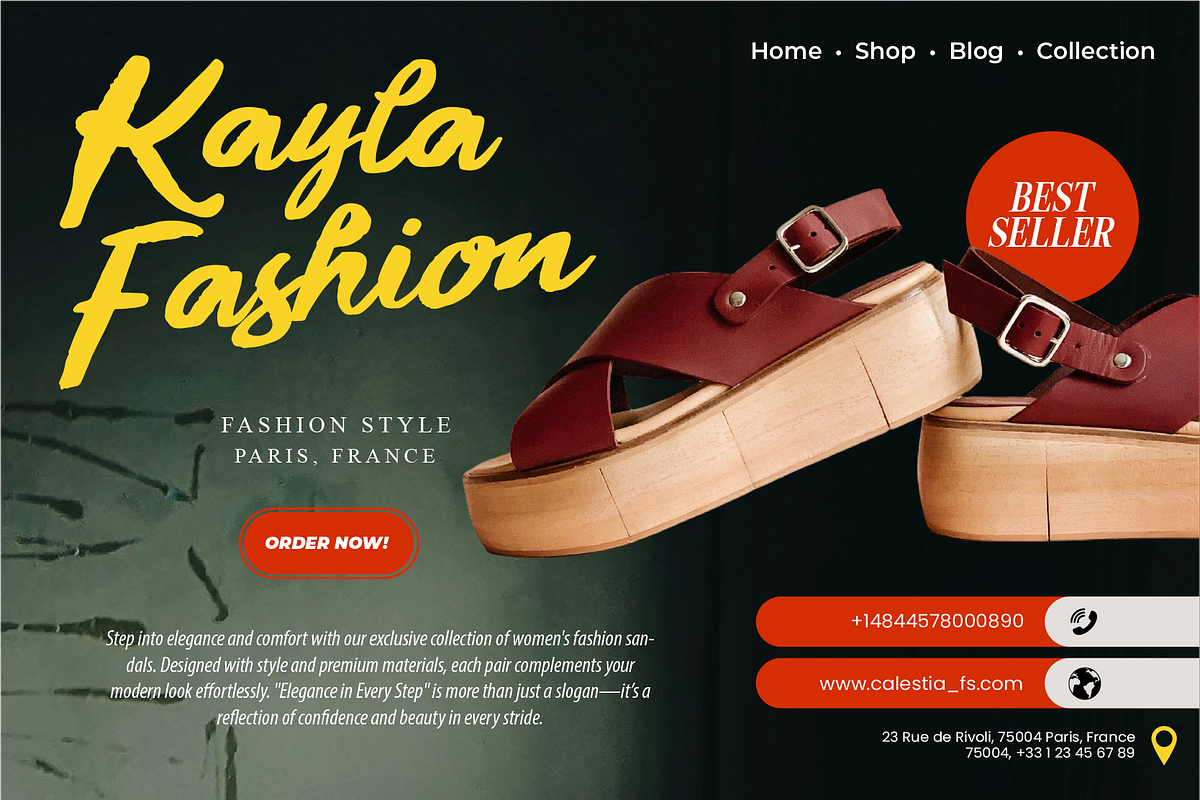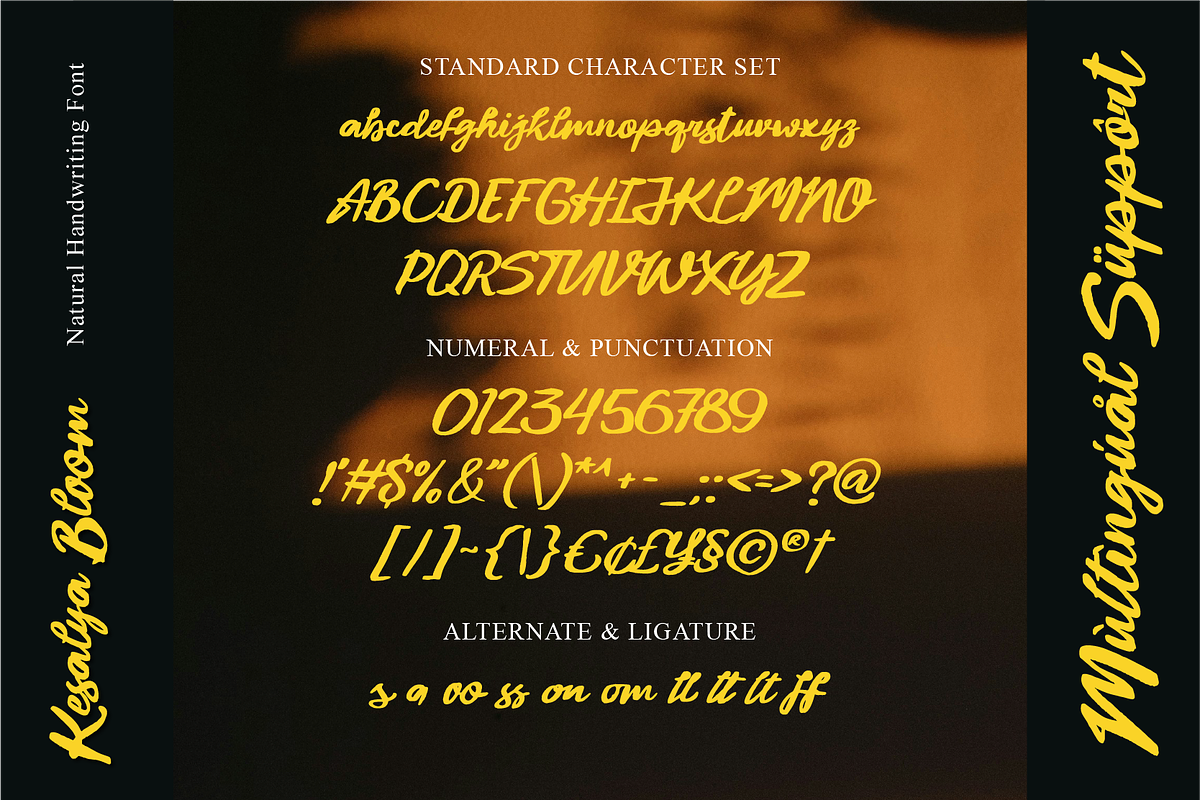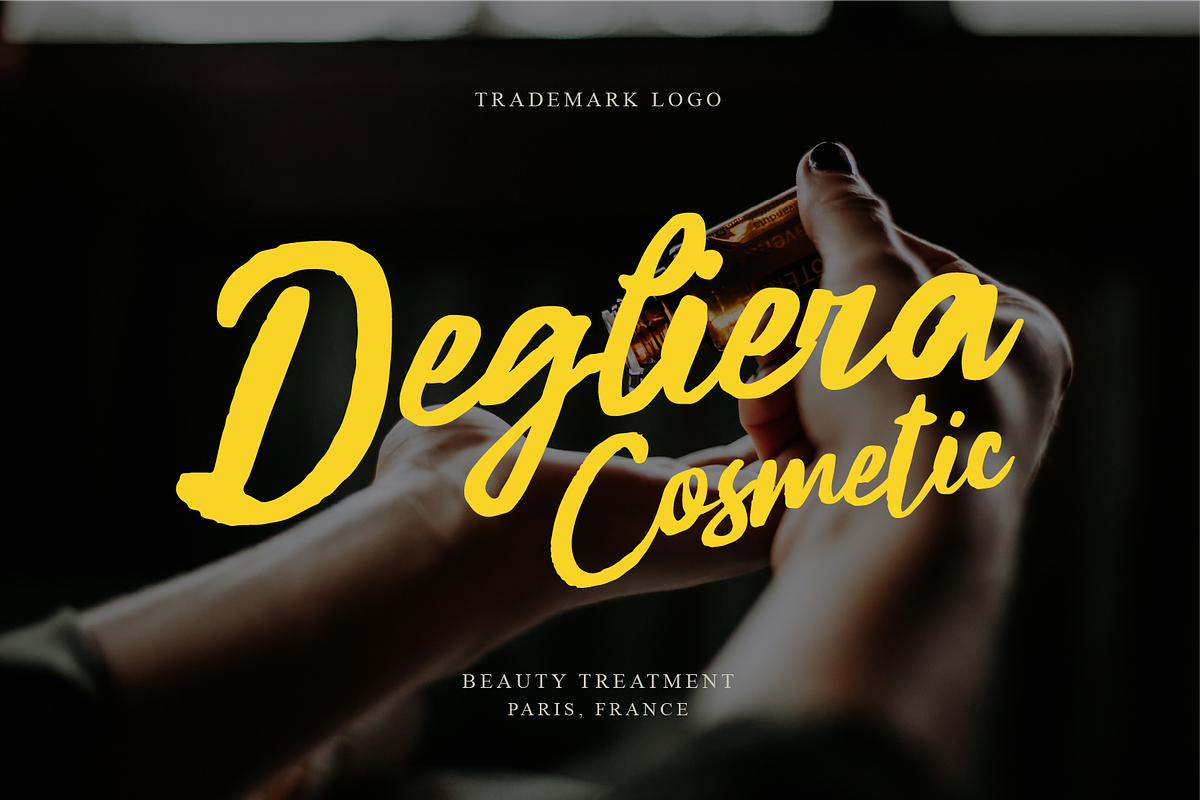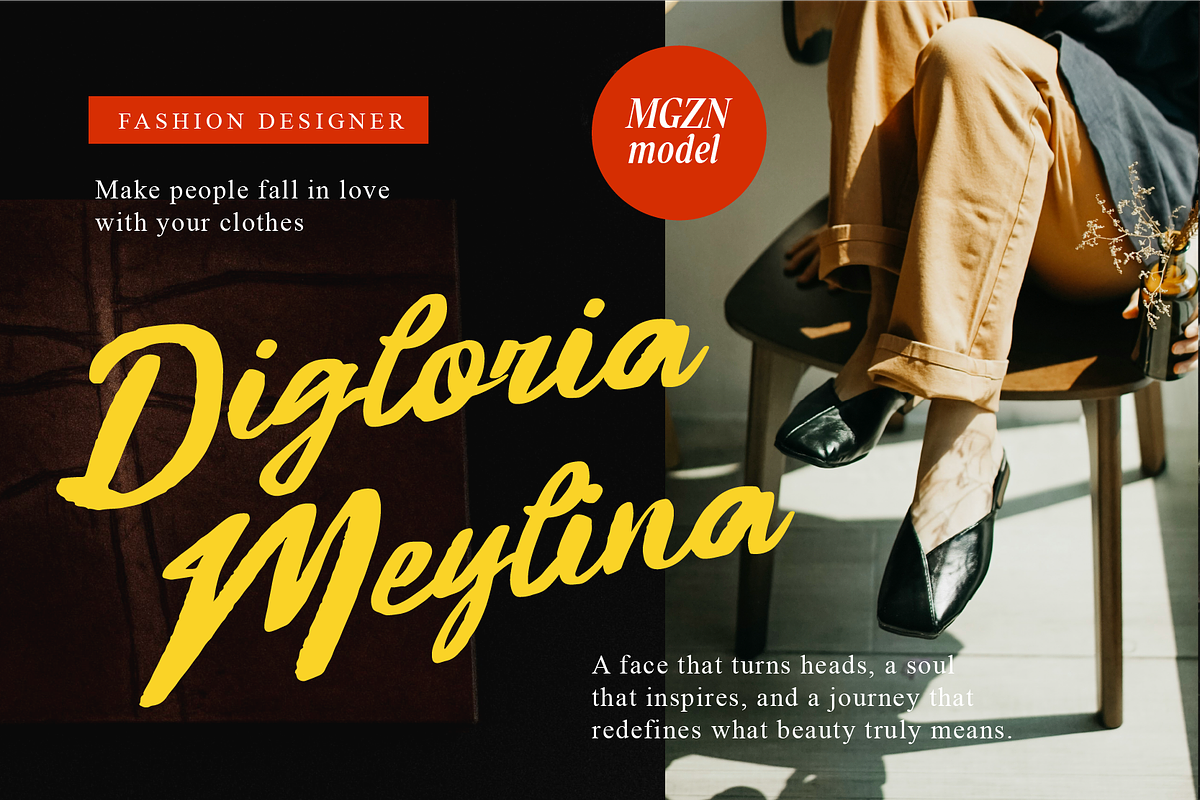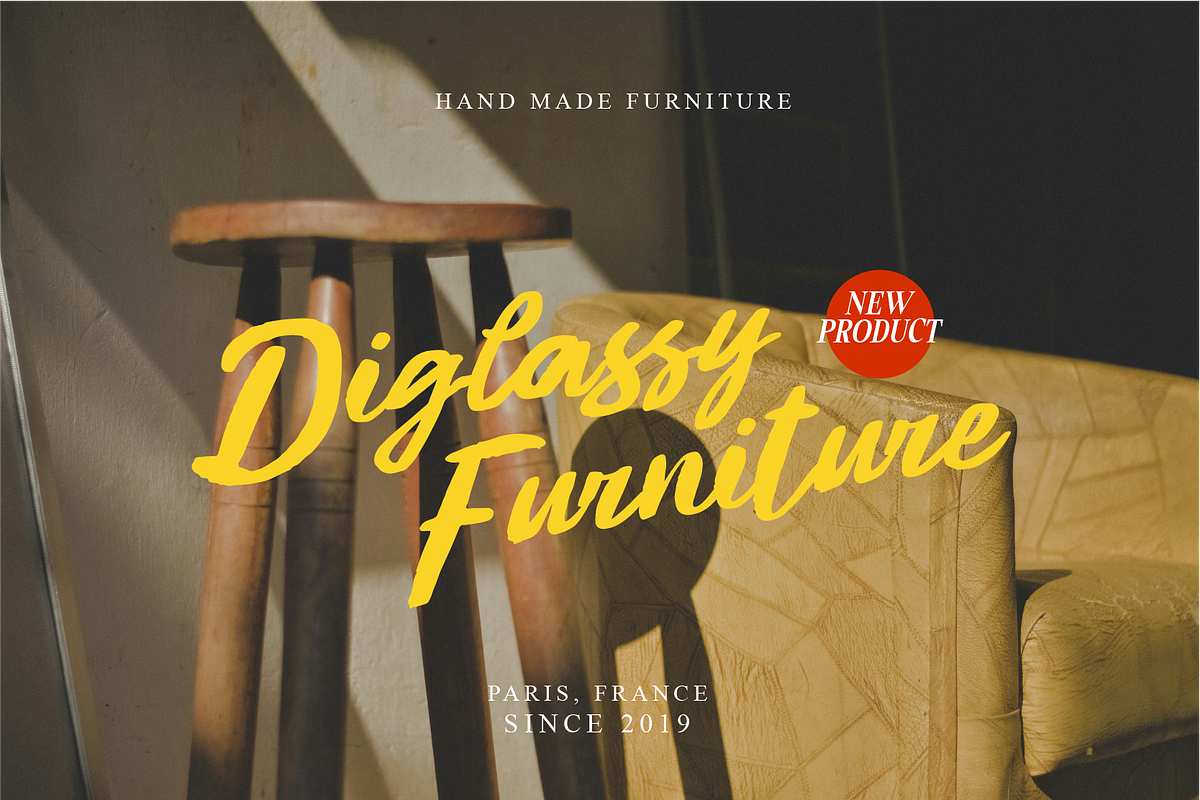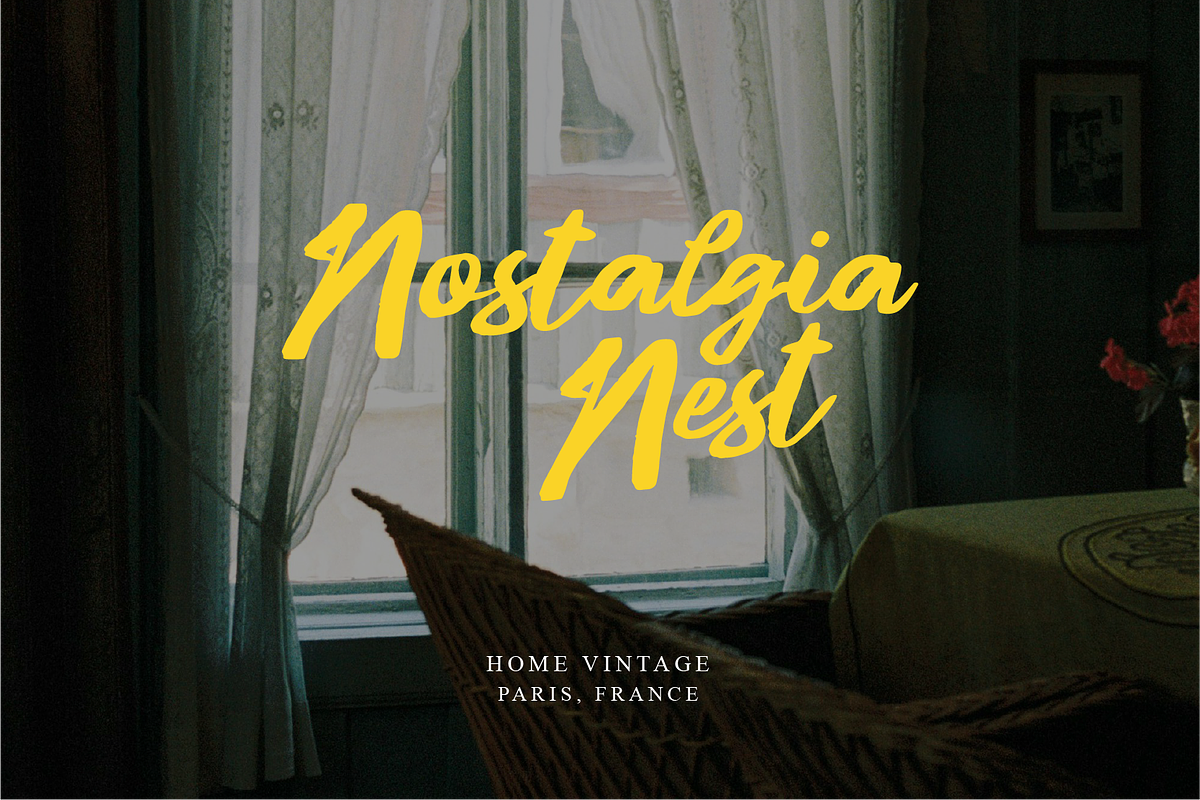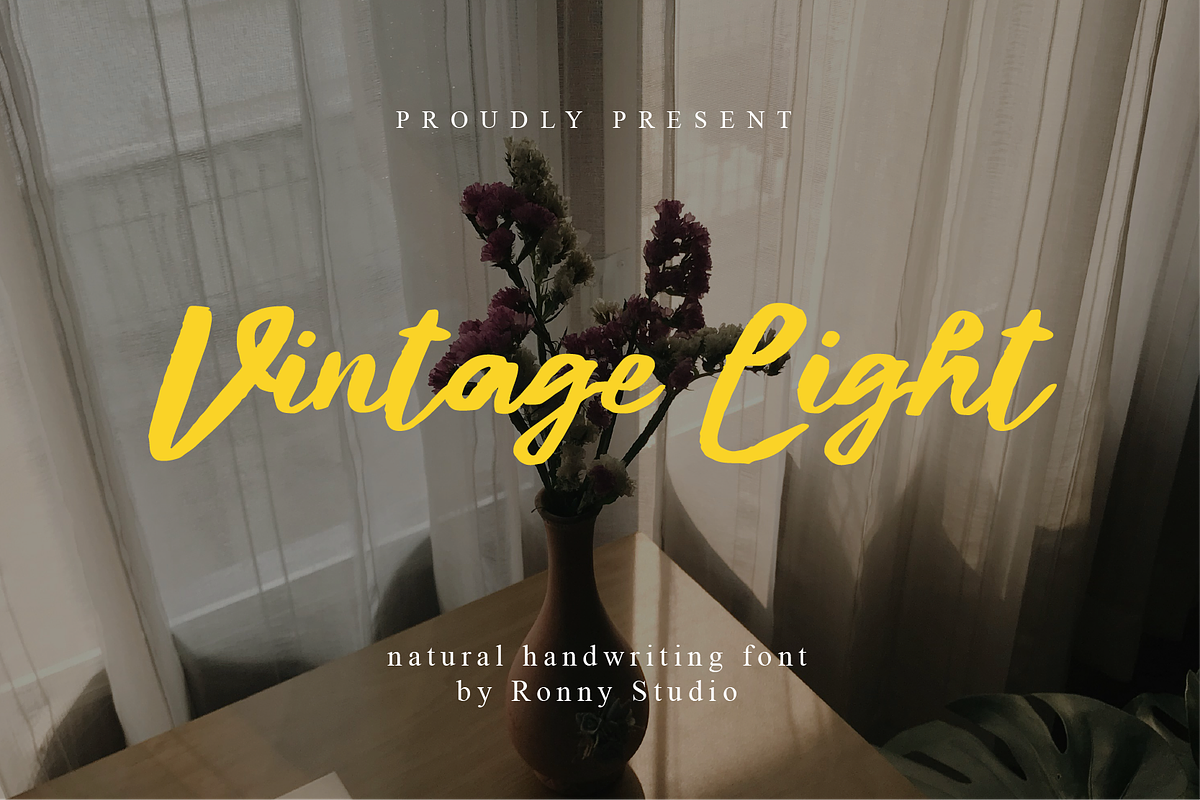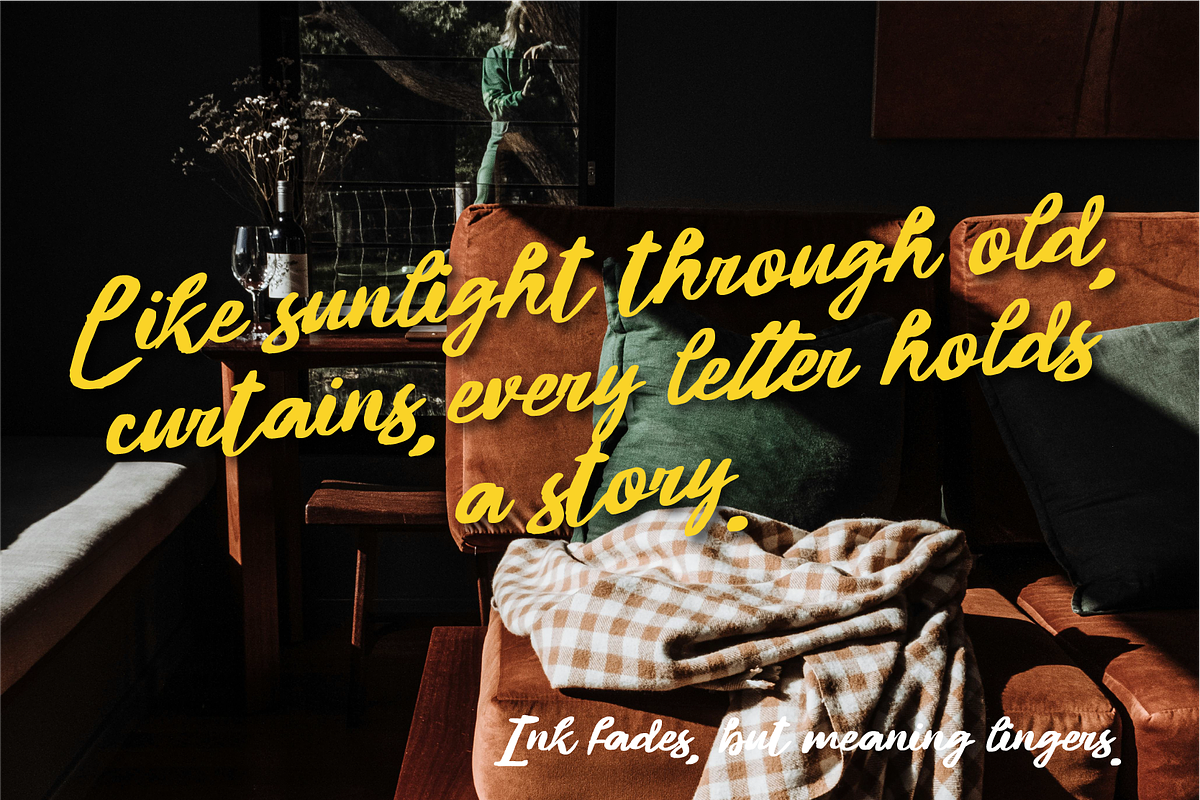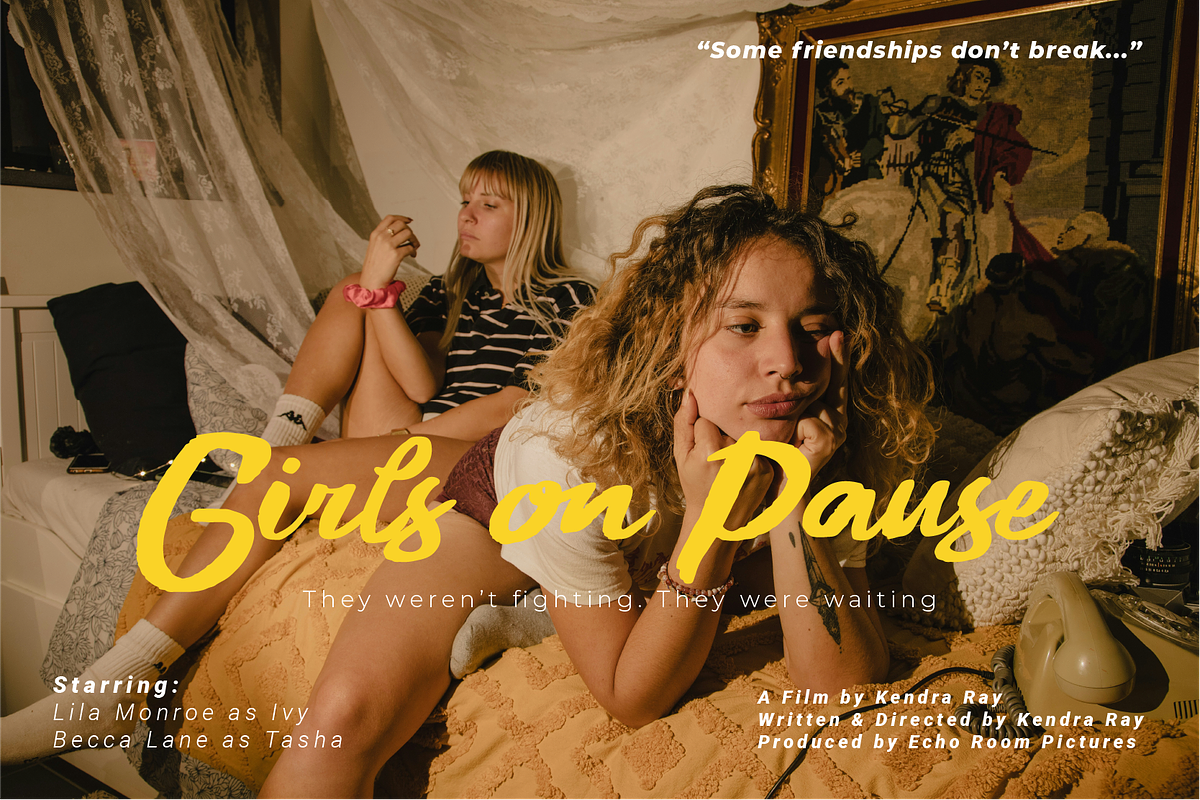
Vintage Light Natural Handwriting
Introducing Vintage Light, a charming natural handwriting font that brings warmth and authenticity to your designs. With its bold yet soft strokes, Vintage Light evokes a nostalgic yet contemporary feel—perfect for projects that need a personal, handcrafted touch. Whether you're creating branding, invitations, or digital content, this font delivers effortless elegance and approachability.
- Natural Handwriting Style – A bold script font with smooth curves and an organic, flowing rhythm.
- Complete Character Set – Includes uppercase, lowercase, numbers, punctuation, and multilingual support.
- Alternates & Ligatures – Enhance your typography with stylistic alternates and beautiful ligatures for a more natural flow.
- Personal and boutique branding
- Wedding invitations and stationery design
- Social media posts, quotes, and story highlights
- Handmade product packaging and labels
- Journals, scrapbooks, and artistic editorial layouts
- Any project that calls for a handwritten, heartfelt touch
Add warmth, charm, and personality to your creative work with Vintage Light—a script font that feels both timeless and modern.